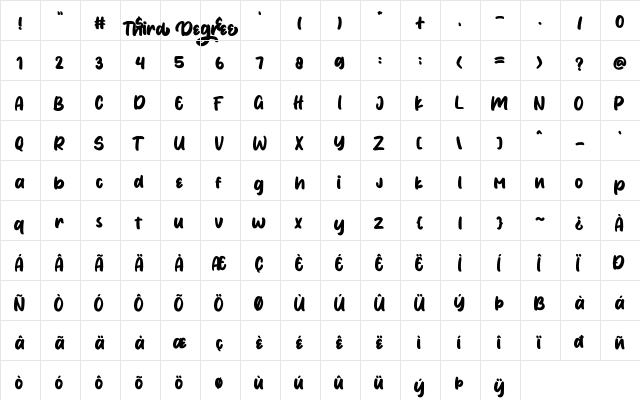
Third Degree Bold
| Designer | Stefie Justprince |
Design Context for Third Degree Typeface
Third Degree is a composed and adaptable typeface that performs quietly and consistently across a wide range of design contexts. Its bold stroke weight gives it real presence on the page.